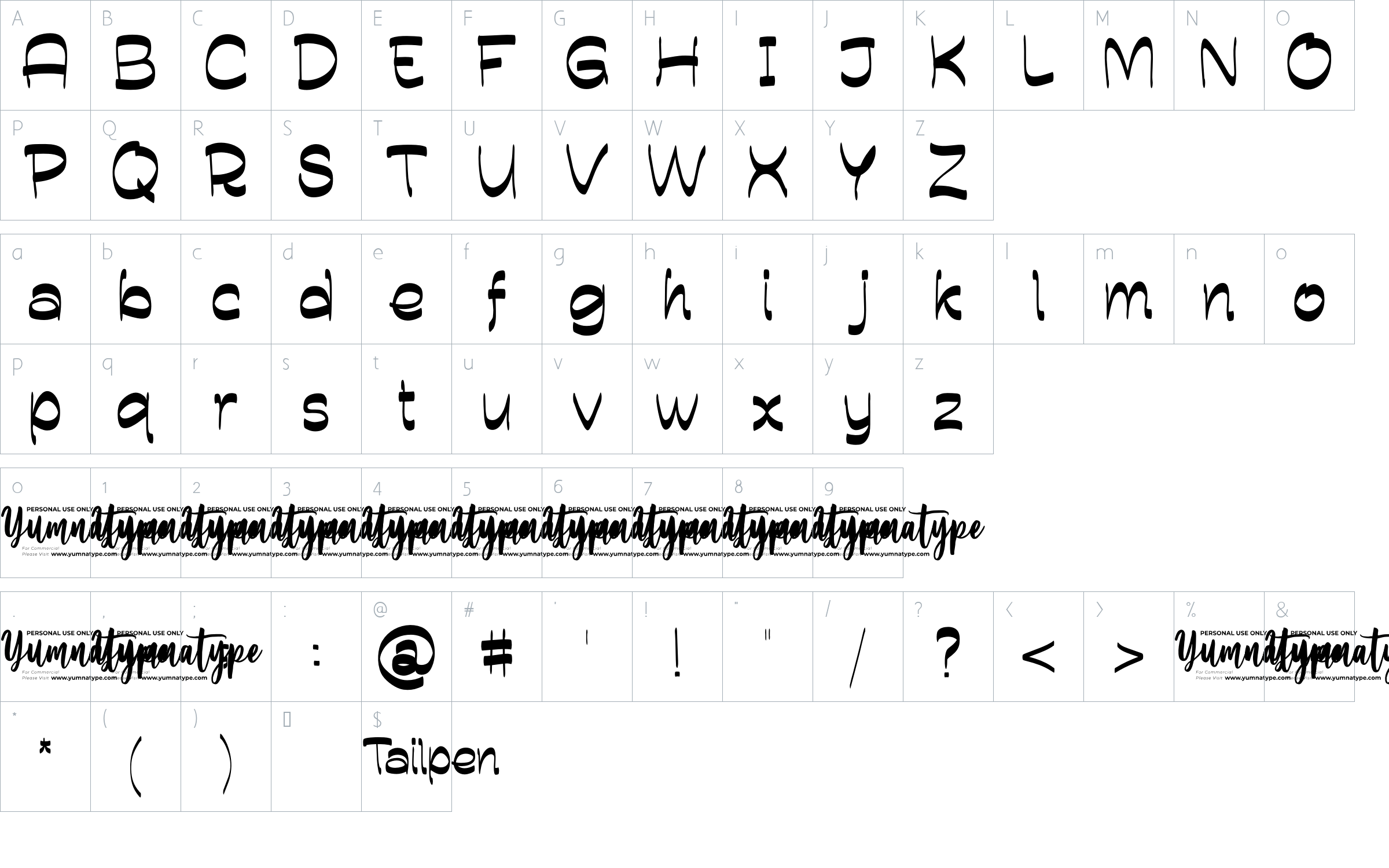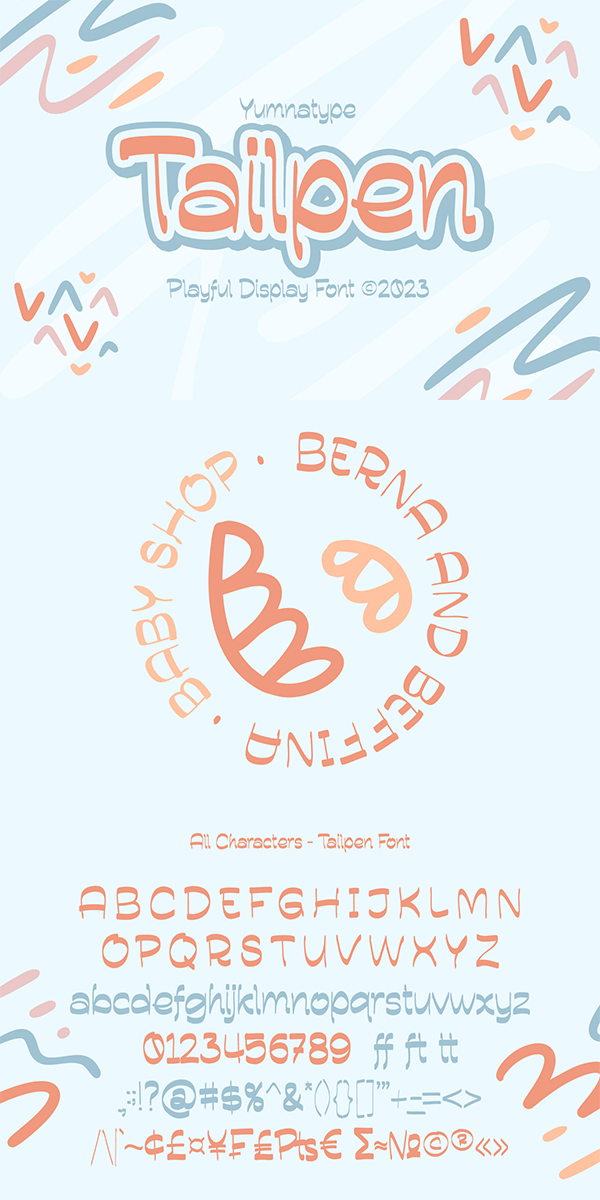
Tailpen Font
About Tailpen
Tailpen is a display font in simple, inclined square letter shapes to show charming, real, attractive nuances. It is greatly legible due to the simple shapes in high contrasts with which you can apply this font for various text sizes. It also gives you a clipart as a bonus and you can make use of the available features here as well.
Tailpen fits best for various design projects, such as brandings, posters, banners, headings, magazine covers, quotes, printed products, merchandise, social media, etc. Find out more ways to use this font by taking a look at the font preview.